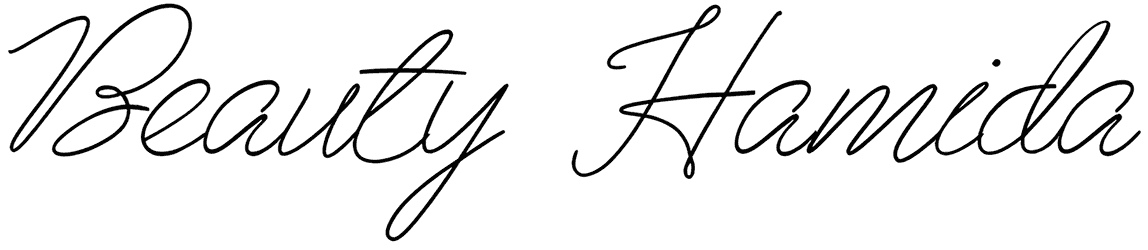
Beauty Hamida Font
Due to the rounded characters and cursive style of Beauty Hamida, this script font would work really well with a wide range of graphic content, including billboards, product labels, movie posters, or flyers. Aside from the lack of legibility, this handwritten font can lead to a feeling of tenderness, accuracy, and personalization.